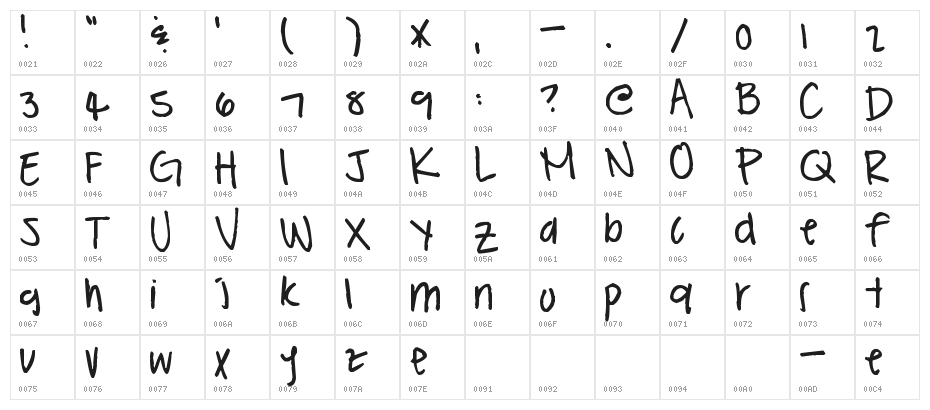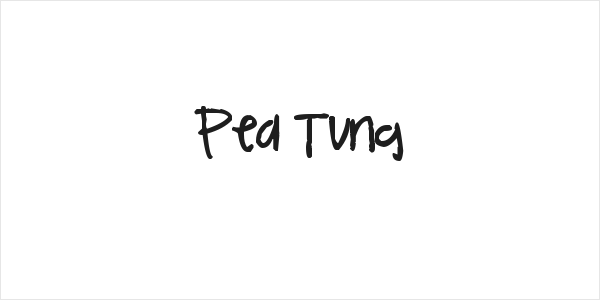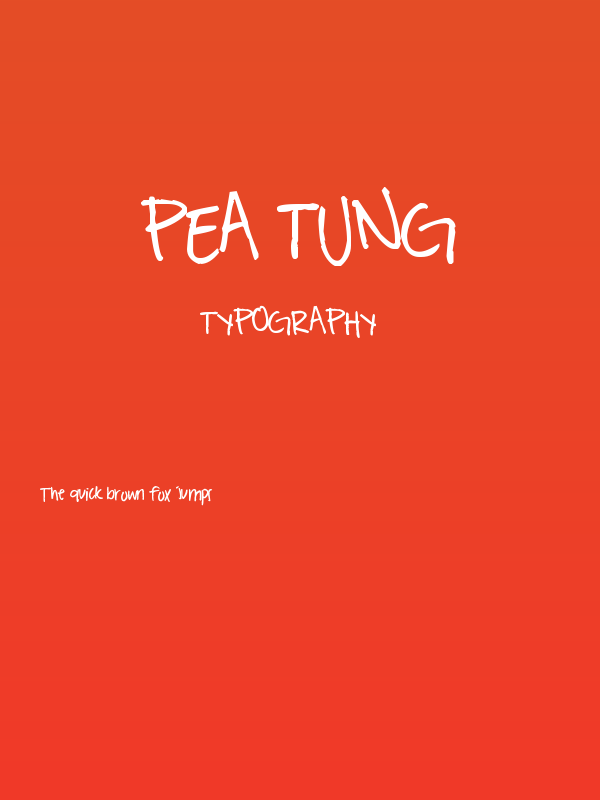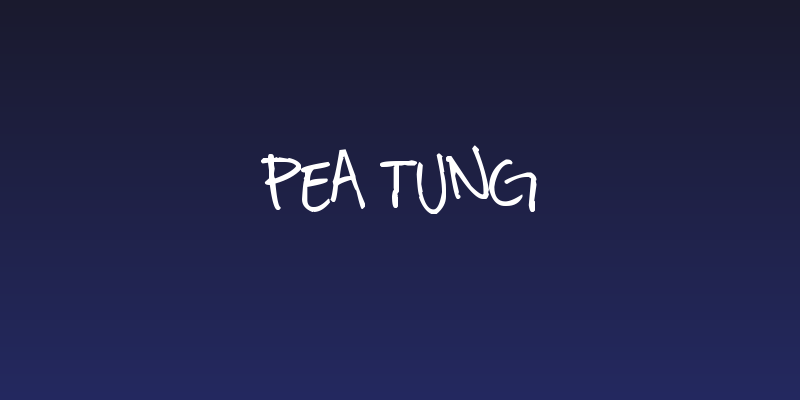
Pea Tung Font
Pea Tung Description
This font exudes a playful and casual handwritten style, characterized by its bold and expressive strokes. The letters are unevenly sized, adding a dynamic and spontaneous feel to the text. The uppercase and lowercase letters maintain a consistent flow, while the numbers and special characters complement the overall aesthetic. The font's informal nature makes it ideal for projects that require a personal touch or a creative flair. Its boldness ensures readability, even in smaller sizes, while the irregularities in the letterforms contribute to its charm.